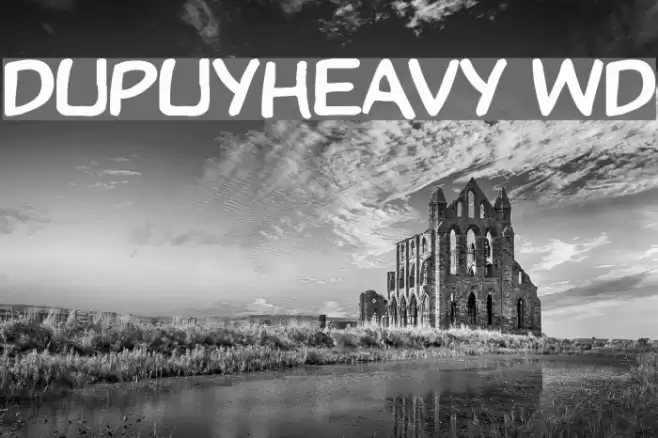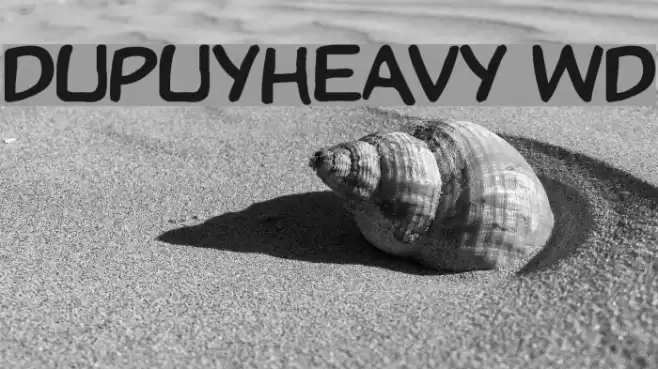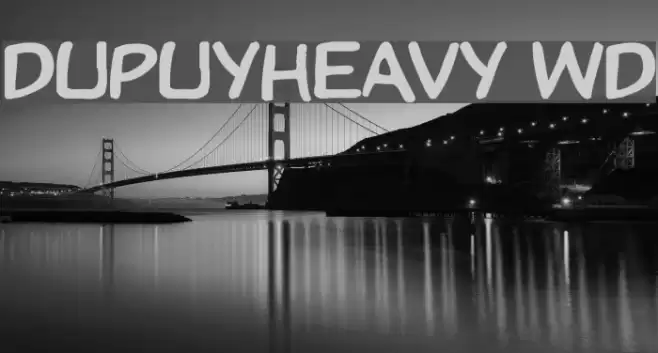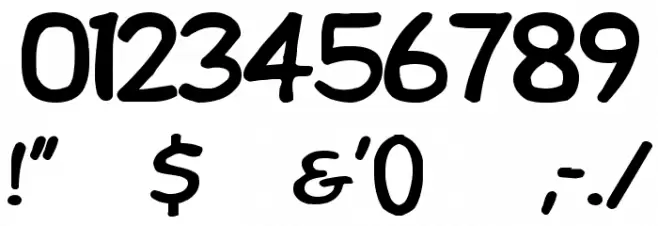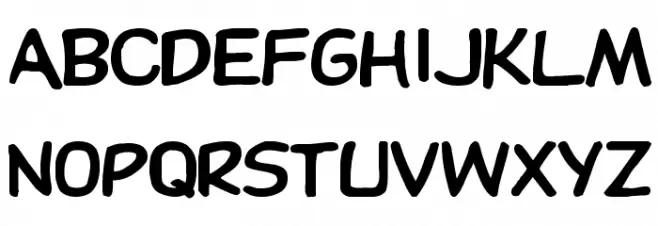
DupuyHeavy Wd Font
DupuyHeavy Wd Description
This font features a bold and playful design with rounded edges and a hand-drawn aesthetic. The characters are thick and slightly irregular, giving it a casual and friendly appearance. The uppercase and lowercase letters maintain consistent proportions, while the numerals are clear and easy to read. Special characters are uniquely styled, adding to the font's charm. Its overall look is informal yet impactful, making it suitable for creative and fun projects.
A bold, playful font with rounded, hand-drawn characters from Uncategorized fonts.
- Proposed Projects: Ideal for children's books, comic strips, playful branding, and casual invitations.